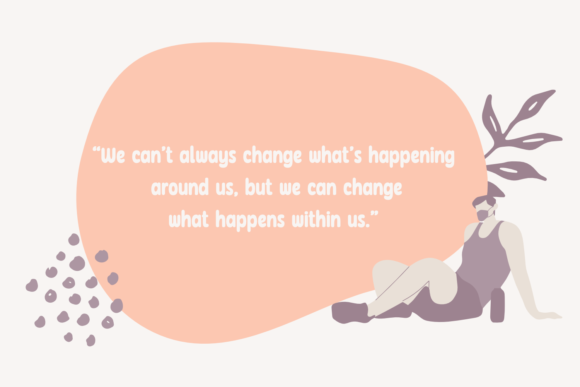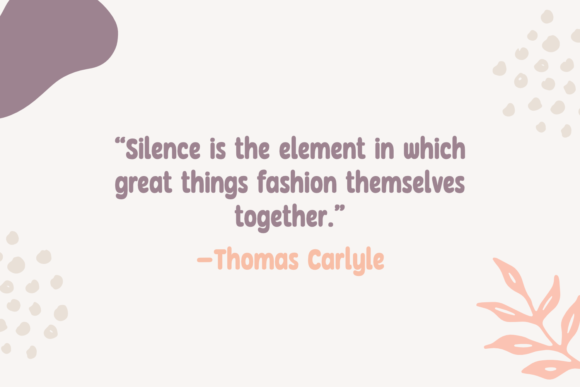
Oddly Calming Font
db-ku.com - Script & Handwritten -- Oddly Calming is a friendly, neat and simple handwritten font that you can use for all chalkboard quotes or teaching material! Its authentic look will add a personal and realistic feel to your designs.